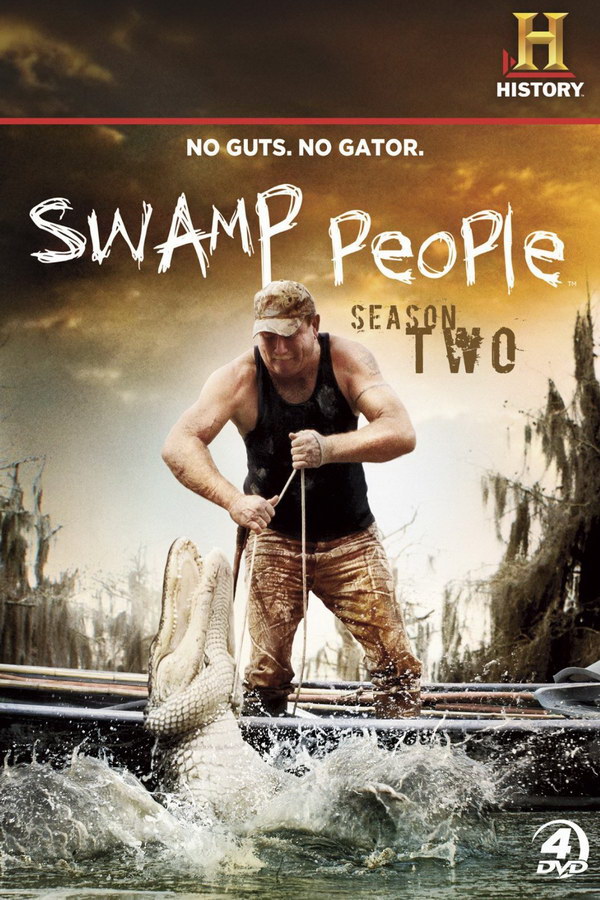
Swamp People Font
Fonts in UseSwamp People is a reality TV series that premiered on the History Channel in 2010. It follows the lives of alligator hunters in the swamps of Louisiana as they catch these dangerous reptiles for their meat and hides.
TV show title font resembles Diediedie with modified "p" and "e". Created by Staic Type, Diediedie is a free font available for download in the Fonts Used Section, including uppercase/lowercase letters, numerals, and most punctuation marks.